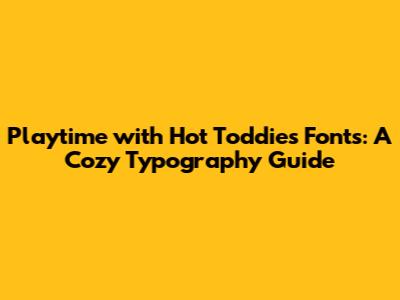
- Script Fonts: Great Vibes, Playlist Script, Dancing Script
- Slab Serif Fonts: Rockwell, Arvo
- Handwritten Fonts: Permanent Marker, Amatic SC
- Rounded Sans-serif Fonts: Lato, Open Sans, Raleway
- Great Vibes (Script) + Lato (Sans-serif)
- Playlist Script (Script) + Open Sans (Sans-serif)
- Rockwell (Slab Serif) + Raleway (Sans-serif)
- Arvo (Slab Serif) + Lato (Sans-serif)
- Use looser letter spacing for a more relaxed feel.
- Experiment with different font weights for visual interest.
- Use earthy colors to create a warm atmosphere.
- Consider adding subtle textures to your text.
- Create visual hierarchy using different font sizes and weights.
Hey guys! Ever feel like your designs need a little extra warmth and a dash of coziness? Well, you're in the right place! We're diving headfirst into the world of hot toddies fonts – fonts that evoke the same comforting feeling as a steaming mug of your favorite winter drink. This isn't just about picking pretty letters; it's about crafting an atmosphere, a vibe, a whole experience. Think about it: a hot toddy isn't just a drink; it's a hug in a mug. And the right font can deliver that same sense of comfort and well-being to your audience. This guide is your warm blanket on a cold day, helping you navigate the exciting world of typography. We'll explore various best fonts options, discover some fantastic font pairings, and learn how different font styles can transform your designs. Get ready to experiment, to have fun, and to give your designs the cozy touch they deserve. Are you ready to get started?
Unveiling the Magic of Hot Toddies Fonts
So, what exactly are hot toddies fonts? They're fonts that capture the essence of warmth, comfort, and a touch of vintage charm, much like the drink itself. They often lean towards being friendly, approachable, and easy on the eyes. We're talking about fonts that feel like a gentle embrace, the kind that makes you want to curl up with a good book (or a hot toddy, of course!). These fonts usually come in styles like script, handwritten, slab serif, and even some softer sans-serif options. The goal is to convey a sense of genuine connection, making your audience feel welcome and at ease. Think about the feeling you get when you see a beautifully crafted menu at a cozy cafe or a handwritten note from a friend. That's the feeling we're after. These fonts excel at conveying a sense of familiarity, trust, and even a touch of nostalgia. They're perfect for projects where you want to create a feeling of warmth, intimacy, and a personal touch. So if you're working on something that needs to feel inviting, comforting, or perhaps a little bit rustic, a hot toddies font might be exactly what you need.
Let’s think about how this applies to various design projects. For instance, imagine designing a website for a local artisan bakery. A hot toddies font would fit perfectly, giving the site a welcoming and friendly appearance that reflects the warmth of freshly baked goods. Or, if you're creating invitations for a fall wedding, a script font that looks like elegant handwriting would create a romantic and personal touch. Even for a brand identity, a carefully selected hot toddies font can subtly communicate the brand's values, such as approachability, trustworthiness, and a commitment to quality. The key is to choose fonts that align with the overall brand message.
Also, consider the subtle details that contribute to a hot toddies vibe. Fonts with slightly rounded edges can be softer and more welcoming than those with sharp, angular features. A touch of imperfection, like a handwritten style, can add a layer of authenticity and personality. Pay attention to the spacing between letters and words, ensuring that your text is easy to read and creates a relaxed visual flow. Experiment with different font weights and sizes to find the perfect balance. Using these fonts effectively will help your audience to feel a greater sense of connection and a feeling of warmth.
Discovering the Best Fonts for Your Projects
Alright, let's get down to the good stuff: the fonts themselves! Picking the best fonts for your projects is all about understanding what feeling you want to convey. I've put together a list of some of my favorite font styles that perfectly embody the hot toddies spirit. First off, we have script fonts. These are the darlings of the cozy aesthetic. Think flowing, handwritten styles like Great Vibes, Playlist Script, or Dancing Script. They bring an instant touch of elegance, personality, and intimacy. Script fonts are perfect for headings, quotes, and anywhere you want to add a personal touch. Next up, we have slab serif fonts. These fonts have thicker serifs, giving them a sturdy but friendly appearance. Fonts like Rockwell or Arvo can add a touch of vintage charm and are excellent for body text, creating a feeling of warmth and reliability. For a more modern yet warm vibe, you can explore handwritten fonts. These fonts imitate handwriting styles but are generally more legible than true scripts. Consider fonts like Permanent Marker or Amatic SC for a playful, approachable feel.
Besides, sans-serif fonts can also be cozy if chosen carefully. Opt for fonts with rounded edges and a slightly softer appearance. Lato, Open Sans, or Raleway can work well, especially when paired with a script or handwritten font. Then, don't forget the importance of legibility. While aesthetics are important, readability should always be a priority. Choose fonts that are easy to read at different sizes and weights. And remember, the best font is the one that works best for your specific project. Don’t be afraid to experiment! Download different fonts, try them out in your designs, and see how they feel. Play around with different sizes, weights, and letter-spacing to find the perfect fit. And don’t be afraid to mix and match different font styles. When you find that perfect font, you'll know it. It will instantly elevate your design and make it feel warm, inviting, and wonderfully cozy.
Here's a quick cheat sheet for some popular hot toddies font options:
Mastering Font Pairings for Maximum Coziness
Okay, so you've got some amazing best fonts in mind. Now, let's talk about font pairings. This is where the real magic happens, guys! Combining different fonts in a harmonious way can truly amplify the cozy effect. The goal is to create a visual balance, a relationship between your fonts that feels natural and pleasing to the eye. One of the most common pairings is to combine a script or handwritten font with a sans-serif or slab serif font. The script font can be used for headings and accents, adding a touch of personality and elegance, while the other font provides readability and structure for the body text. For example, you might pair the script font Great Vibes with the sans-serif font Lato. The combination offers a balanced mix of flair and functionality. Another great pairing option is to combine a slab serif font with a sans-serif font. This pairing can add a touch of vintage charm and is excellent for body text, creating a feeling of warmth and reliability.
Also, consider contrasting weights and styles within the same font family. This can create a cohesive look while adding visual interest. For instance, you could use a bold weight for headings and a regular weight for body text. Also, you can experiment with color, texture, and other design elements to further enhance the cozy feel. Remember, the perfect font pairing will depend on the overall tone and purpose of your project. Think about what you're trying to communicate and choose fonts that complement each other. Also, consider the size and spacing of your fonts. Larger fonts will be more dominant, while smaller fonts will fade into the background. Experimenting with different pairings is key to finding the perfect combination. Don't be afraid to try different things and see what works best for your design. When you find the right combination, you will see your work elevate to the next level.
Here are some of my favorite font pairings for creating a cozy atmosphere: